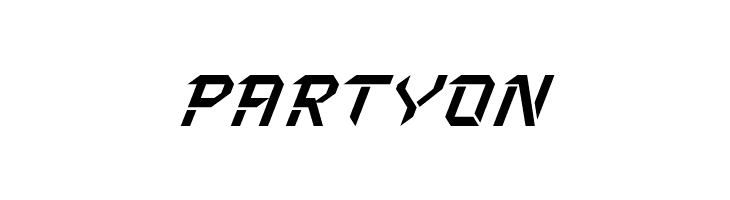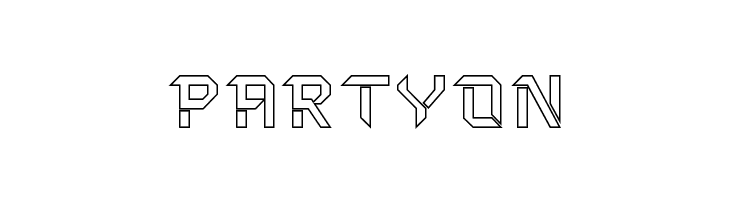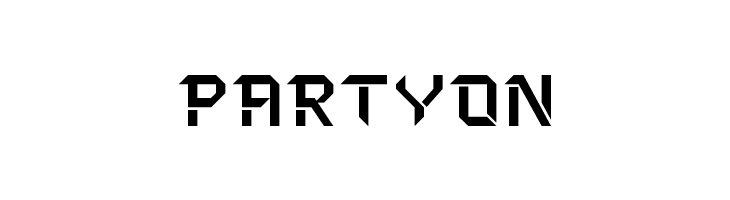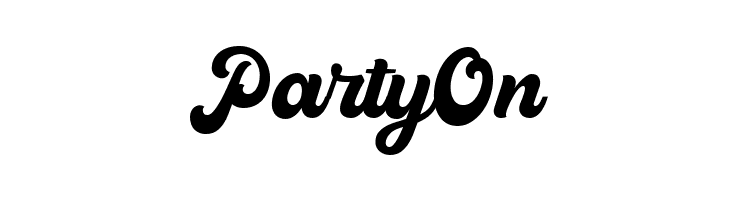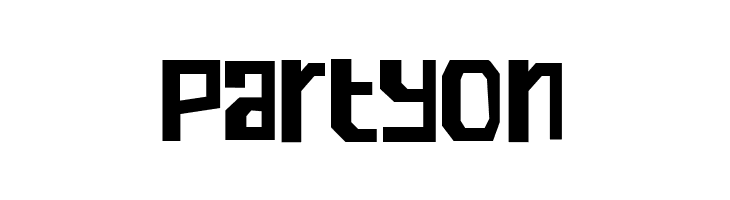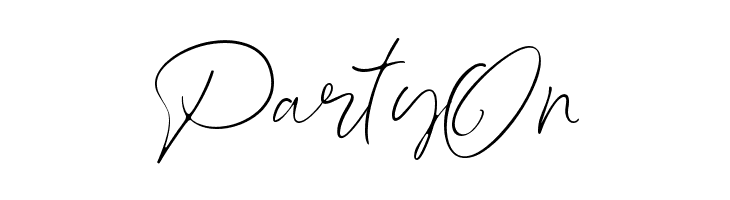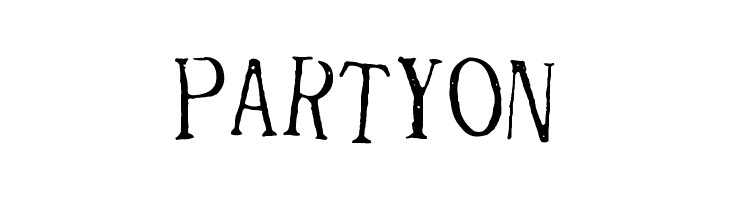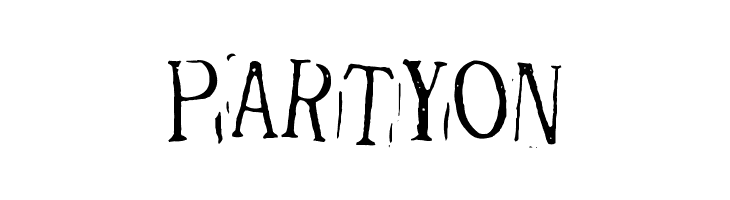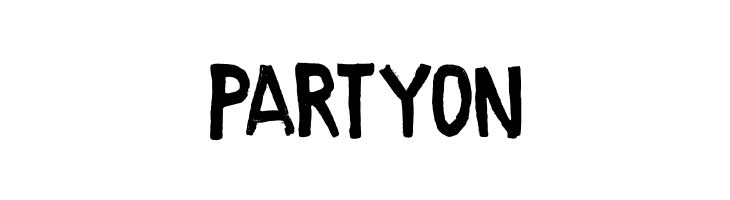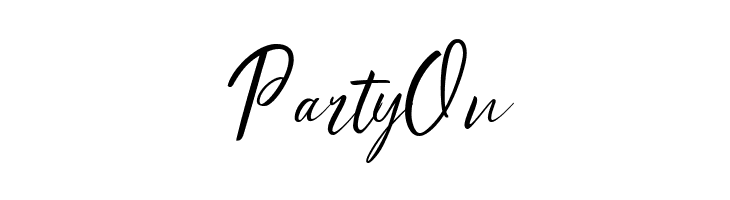
A flowing, cursive font with elegant, interconnected strokes and a modern calligraphic style.
A bold, cursive script font with a playful and energetic style.
A bold, hand-drawn font with a rugged, energetic style.
A bold, geometric font with sharp angles and a modern, edgy style.
A hand-drawn, textured font with a rustic and organic feel.
A distressed, grunge-style font with uneven edges and a hand-drawn look.
An elegant, flowing script font with a natural, handwritten style.
A bold, geometric font with a futuristic and technological aesthetic.
A futuristic, angular font with a dynamic slant, ideal for tech and modern designs.
A geometric, futuristic outline font with angular lines and sharp edges.